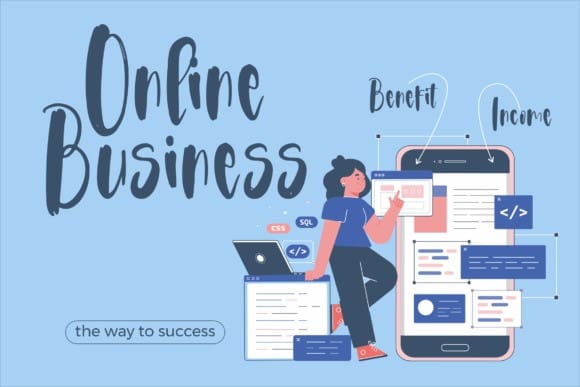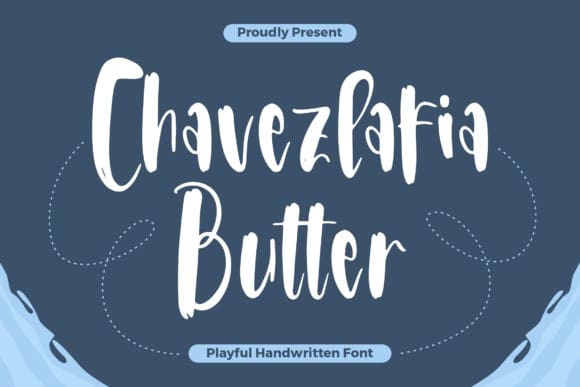
Chavezlafia Butter Font
Chavezlafia Butter Font – Playful Handwritten Font , from Glorytype Studio, suitable for any projects such as: logos, branding projects, homeware designs, product packaging, mugs, quotes, posters, shopping bags, t-shirts, book covers, name card, invitation cards, greeting cards, label, photography, watermark, special events, and all your other lovely projects that need a beautiful script taste.